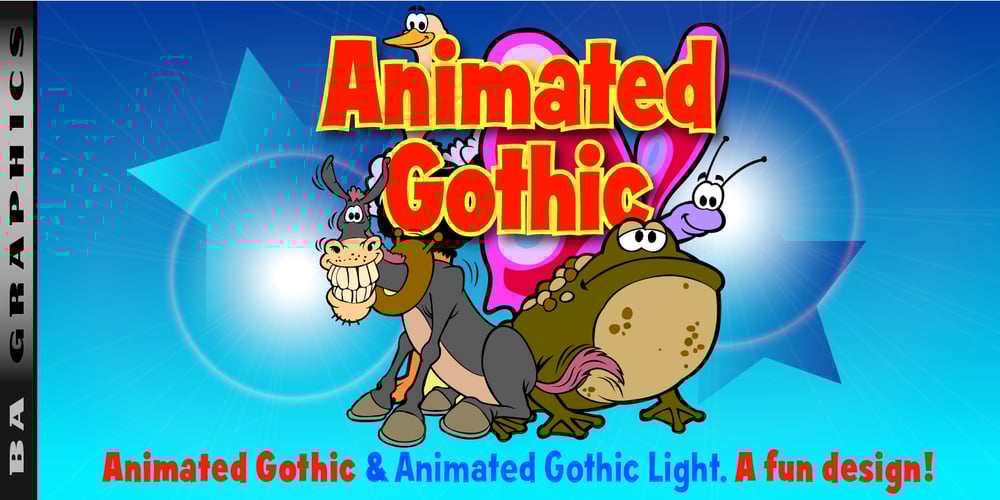
Animated Gothic Font Family was designed by Bob Alonso and published by BA Graphics. Animated Gothic contains 2 styles and family package options. A great animated fun design. Works really well for kid’s stuff and children’s books.